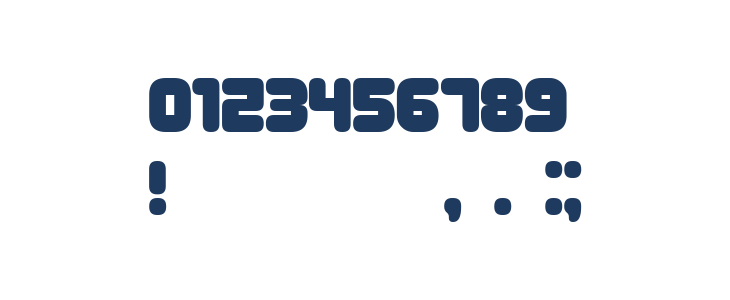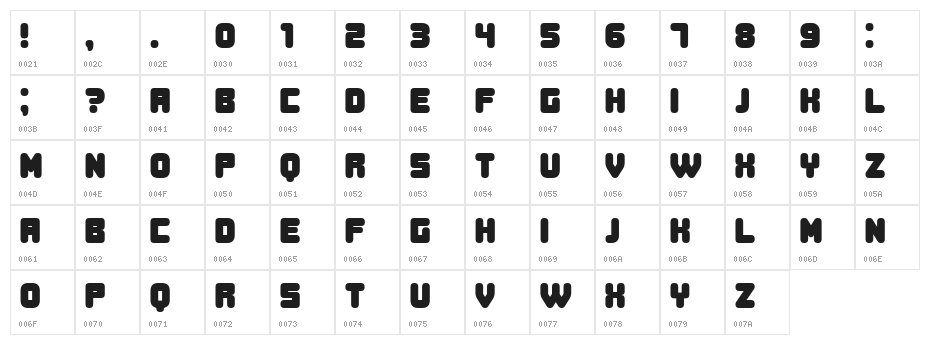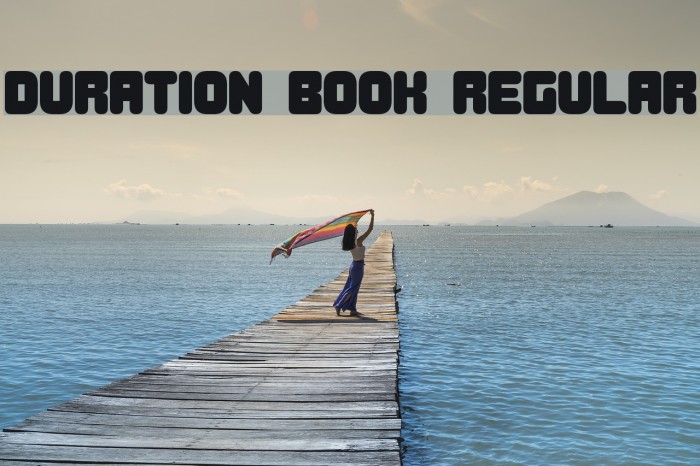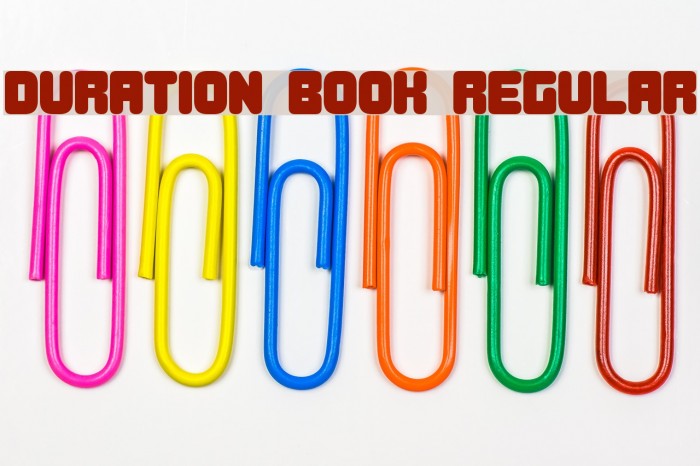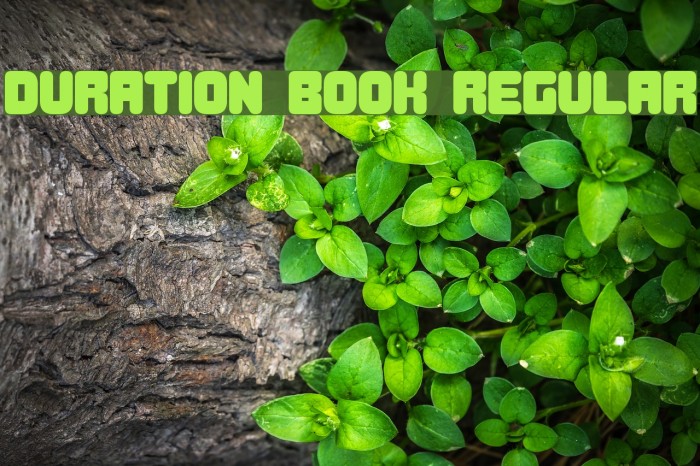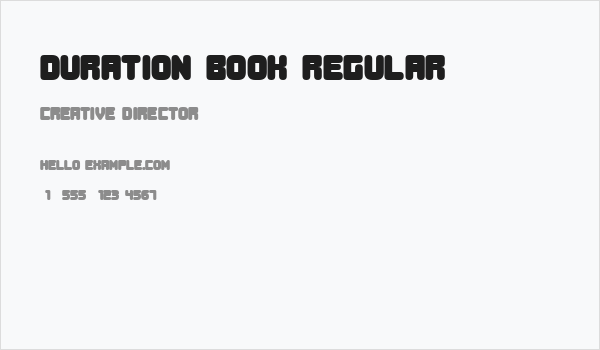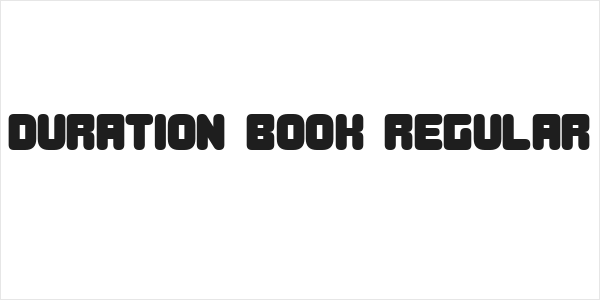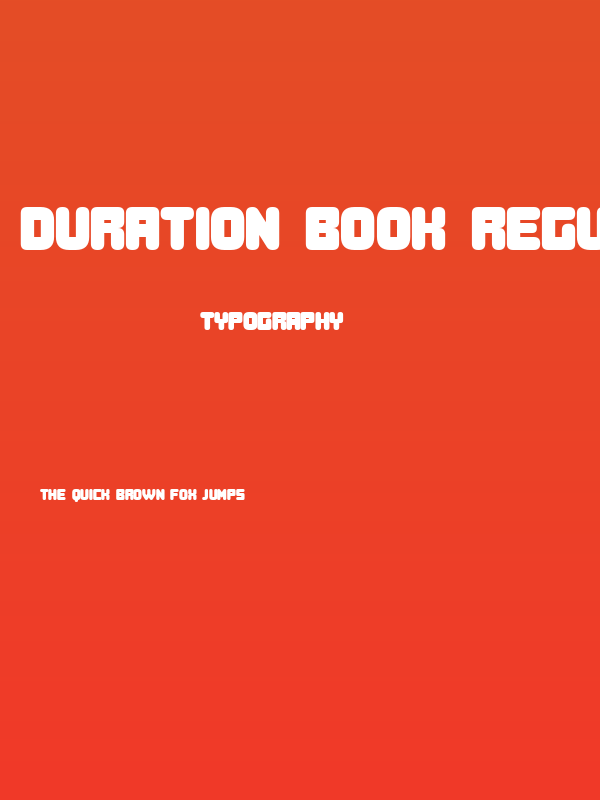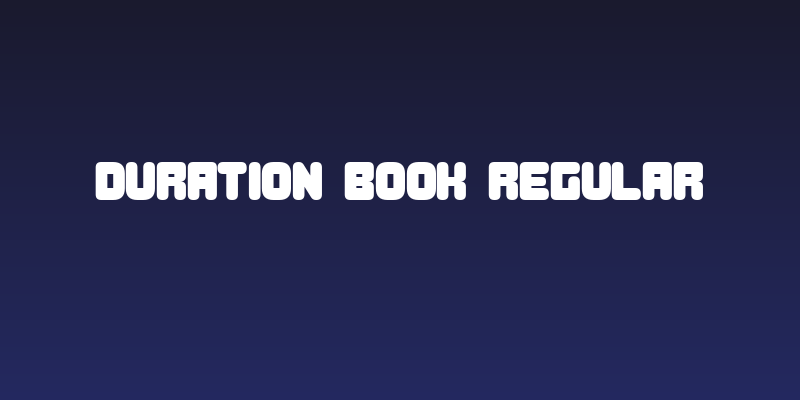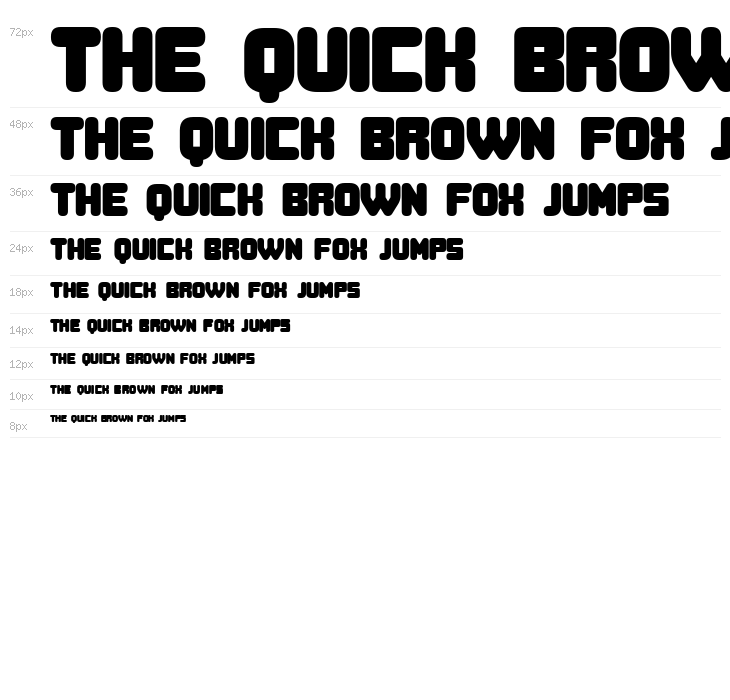
Duration Book Regular Font
Duration Book Regular Description
This font features bold, rounded characters with a modern and playful aesthetic. The letters are uniformly thick, giving a strong and confident appearance. The rounded edges soften the overall look, making it approachable and friendly. The characters are evenly spaced, ensuring readability while maintaining a compact form. This style is consistent across both uppercase and lowercase letters, as well as numbers and special characters. The font's design is ideal for creating a bold statement, with its high contrast and distinctive style.
Proposed ProjectsIdeal for branding, headlines, posters, and any project requiring a bold, friendly typeface.